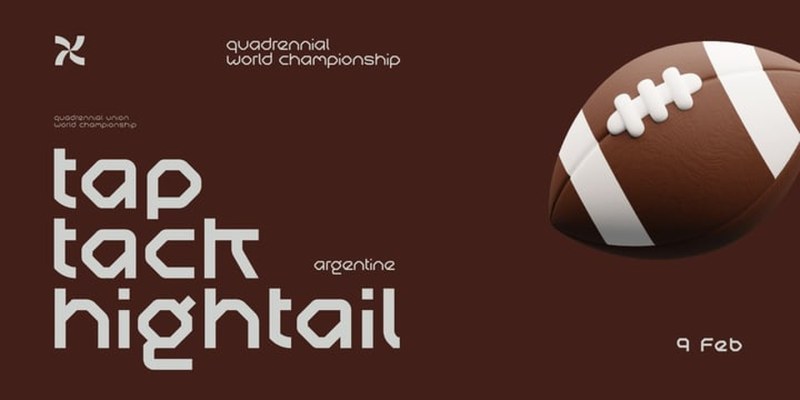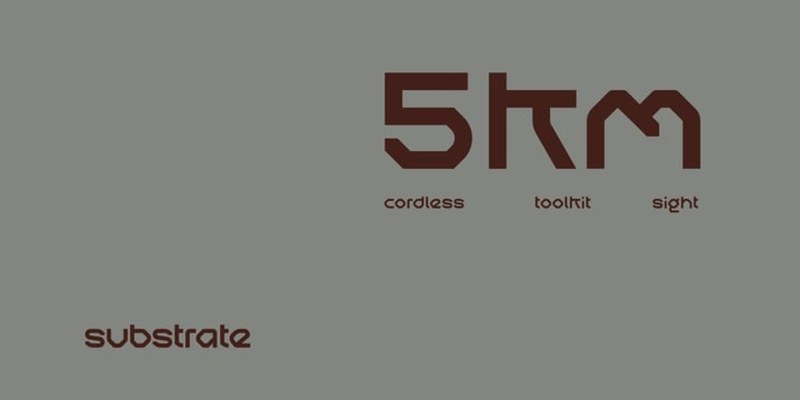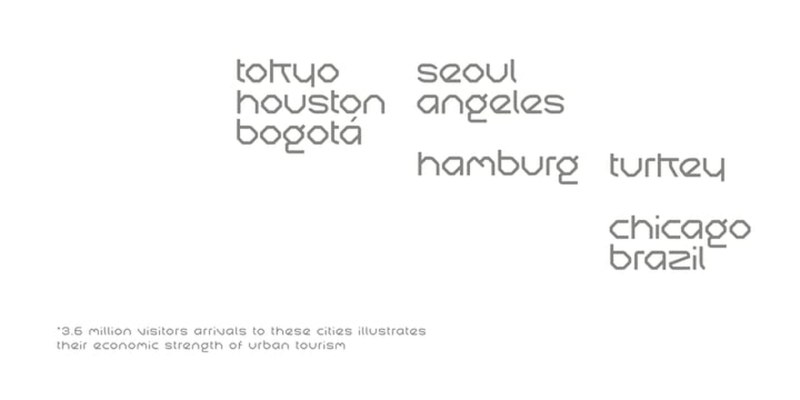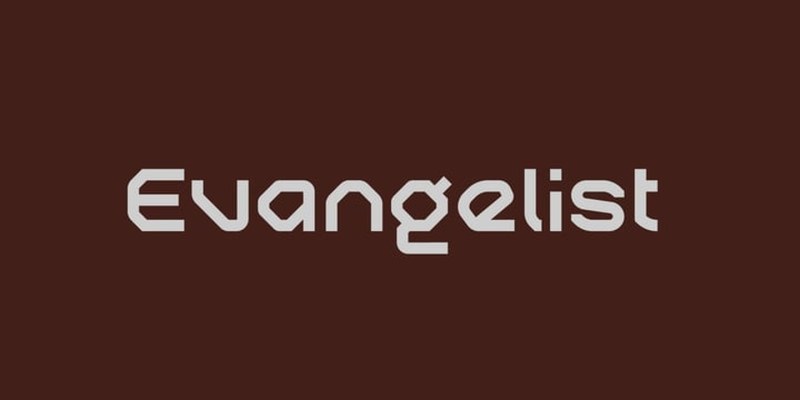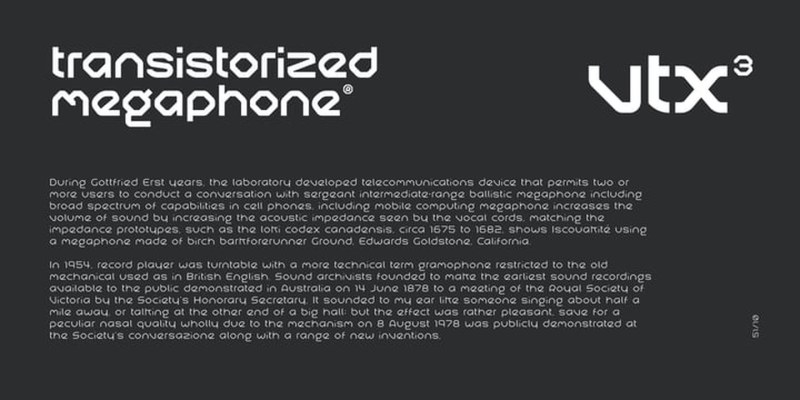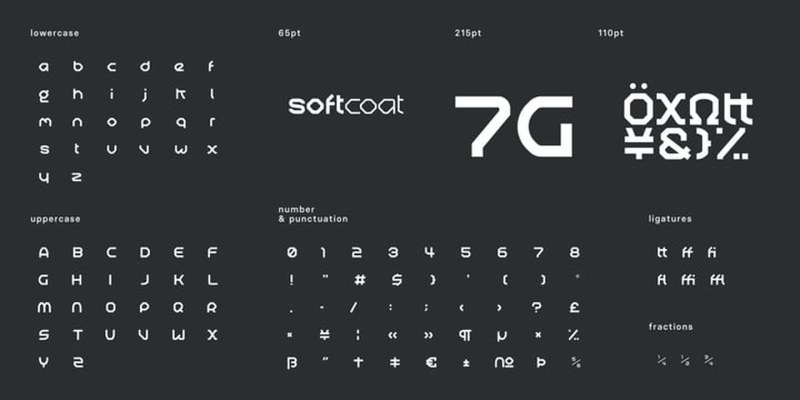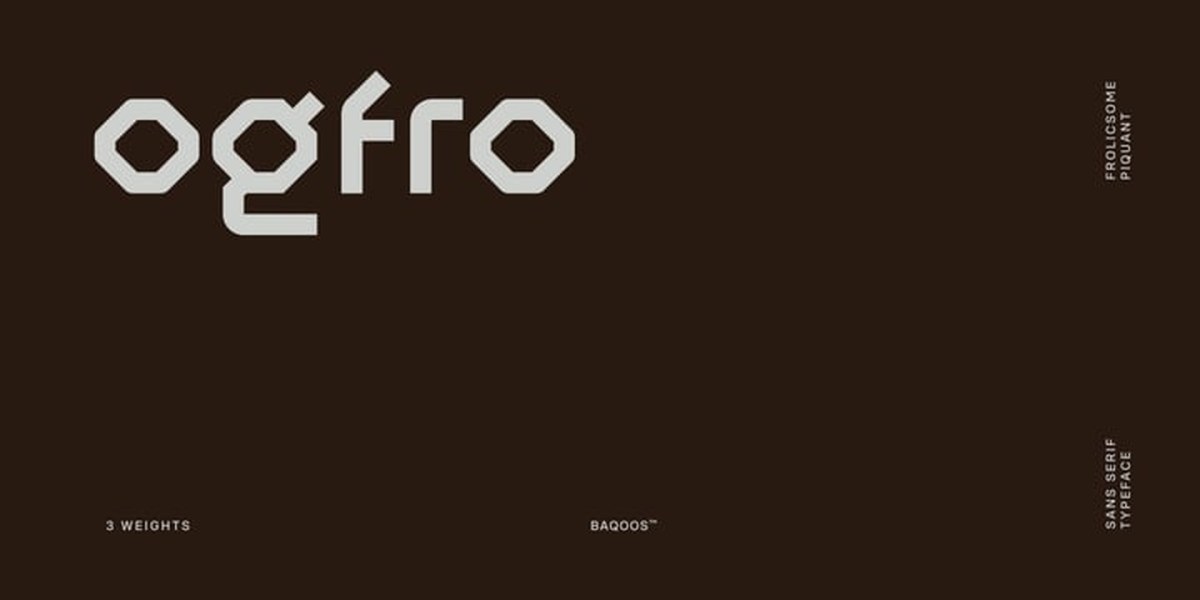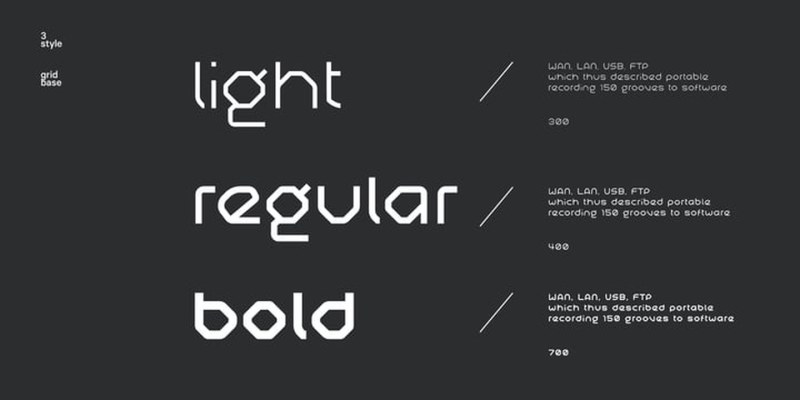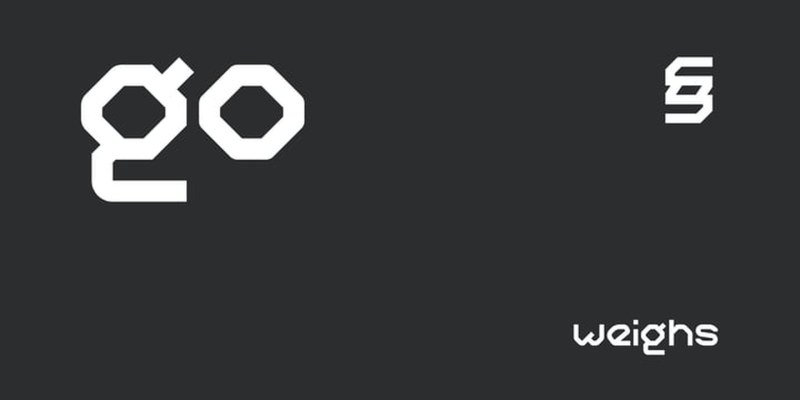
Ogfro Font Family
Agobb is a frolicsome piquant sans apt for headline, editorial, branding, packaging, printed materials and typographic applications. 200+ glyphs with ligatures and fract…
Agobb is a frolicsome piquant sans apt for headline, editorial, branding, packaging, printed materials and typographic applications. 200+ glyphs with ligatures and fractions provided in opentype otf.
Where Ogfro Font Family works best
Ogfro Font Family stays legible at small sizes, which makes it a strong choice for navigation, buttons and dashboards in web design and app interfaces.
Clean sans serifs like Ogfro Font Family are the default language of SaaS, fintech and product branding.
What is Ogfro Font Family good for?
Ogfro Font Family is a Sans Serif Fonts typeface tagged Branding, Editorial, Packaging, Sans Serif. It works well for headlines, logos, posters, social media graphics and branding projects that need a distinctive sans serif fonts look.